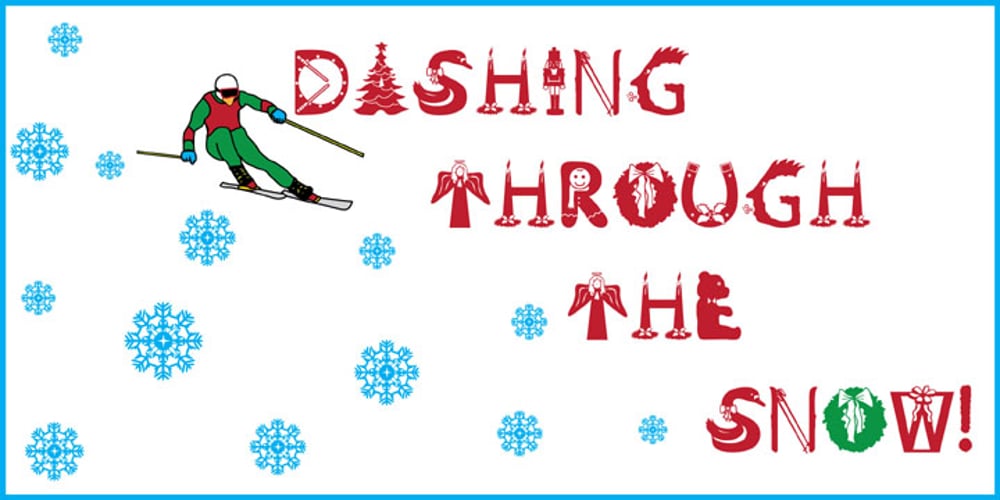
Christmas Spirit 2
Christmas Spirit 2 font
Christmas Spirit 2 Font Family was designed by Allison B. Williams and published by Alphabet Zoo. Christmas Spirit 2 contains 1 styles and family package options. Christmas Spirit was designed to incorporate some of the most familiar icons of the Christmas season into a highly decorative font. Each letter is unique with its own design, and lends itself to a festive environment. From the A as a decorated Christmas tree, to a reindeer that translates into a Z, Christmas Spirit will liven up holiday greetings, invitations, and announcements.